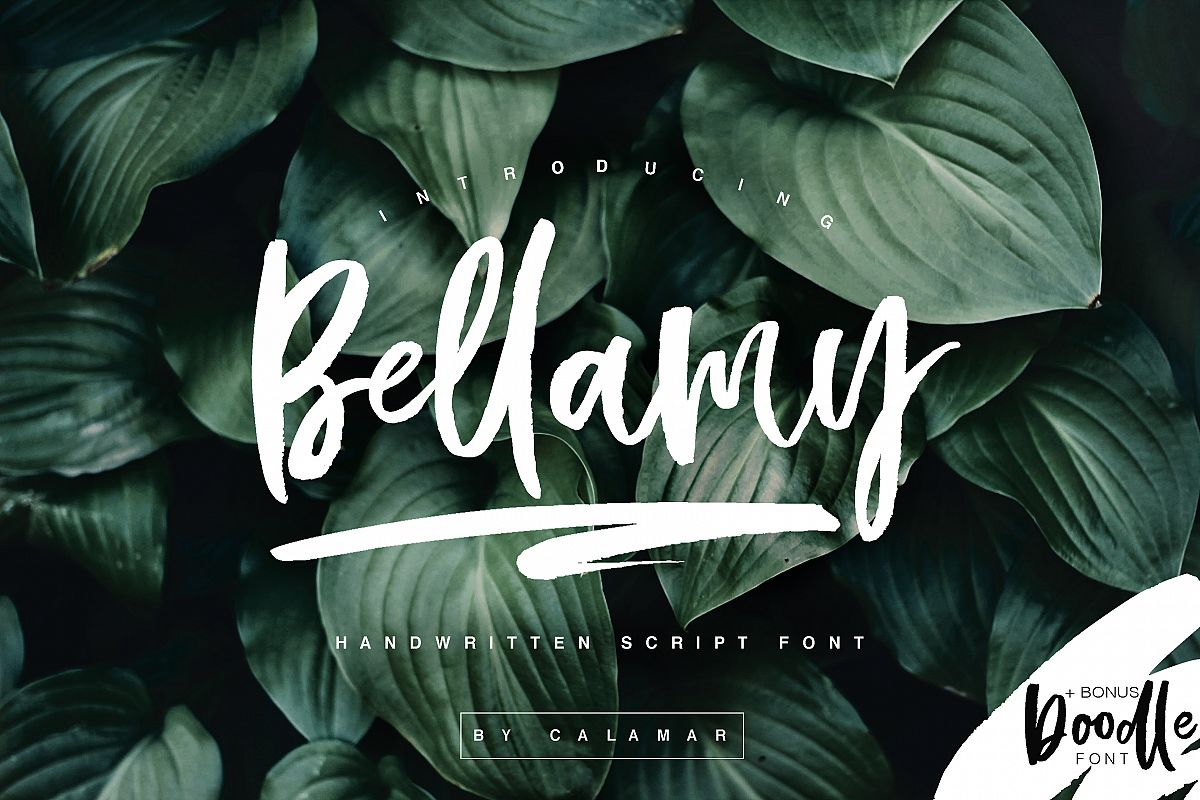
Bellamy Script
I'm happy to introduce you BELLAMY FONT!
It's hand-drawn calligraphic script with dancing baseline and lots of possibilities. This expressive font will look awesome on your cards, wedding invitations, headings, branding materials, quotes, t-shirt and any other amazing projects you are working on.Bellamy font includes Upper and Lowercase Basic Characters, Alternates Lowercase Characters, Standard Ligatures, Numbers and Punctuation. Bellamy has multilingual support for the Western and Central European Languages.